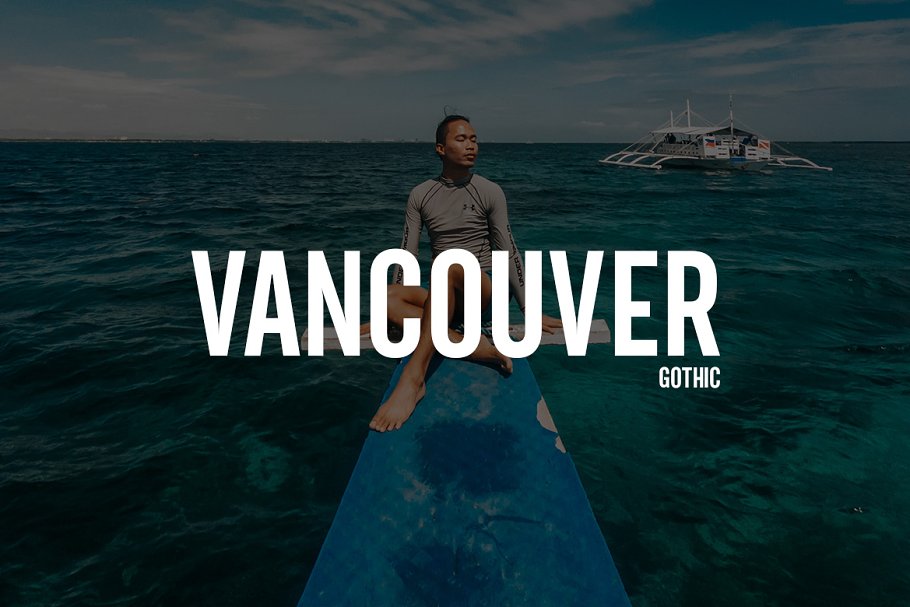
Attention all gamers, web designers, and typography enthusiasts! Are you tired of using generic fonts for your projects and looking for a font that can add personality to your designs? Look no further than Vancouver - Gothic Typeface, the best font for game UI available on the market.
Created by the talented team at Webhance Studio, Vancouver - Gothic Typeface is a beautiful and professional sans-serif font that can take your designs to the next level. Its clean and elegant design makes it perfect for film posters, headlines, block lettering, subheadings, logo designs, big banners, and even classic and decorative typography web designs. With this font, you can give your projects a unique and captivating look that will make them stand out from the rest.
Not only is Vancouver - Gothic Typeface a beautiful and professional font, but it is also created with the user in mind. Its easy-to-read design and versatile nature make it suitable for a wide range of projects, whether you're designing a new game or creating a website.
So why settle for boring and generic fonts when you can elevate your projects with Vancouver - Gothic Typeface? With its captivating and unique design, this font is sure to make your projects stand out and leave a lasting impression on your audience. Download it today and take your designs to the next level!